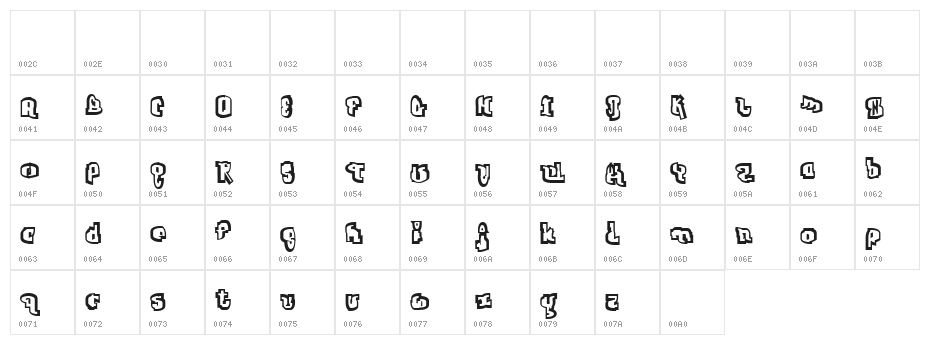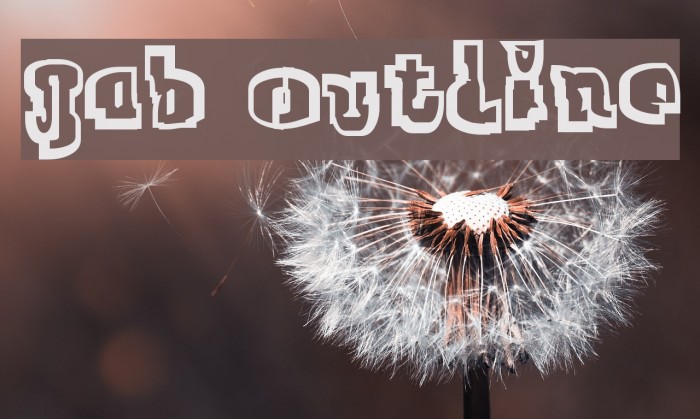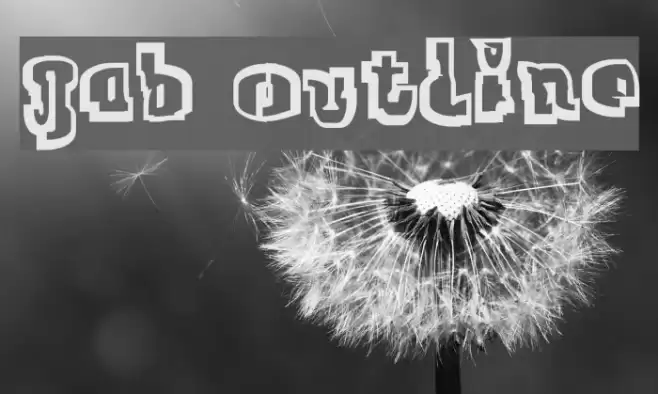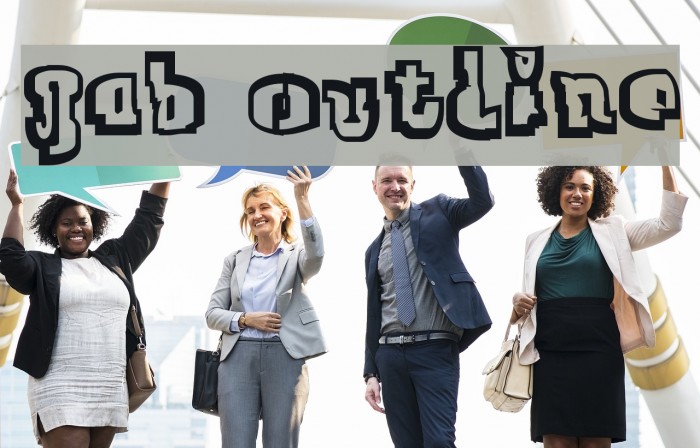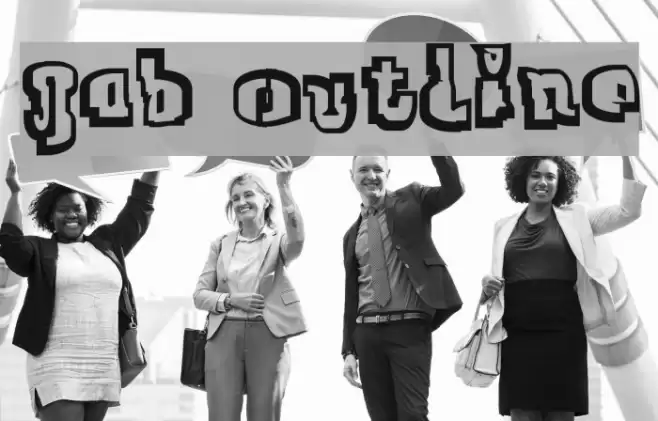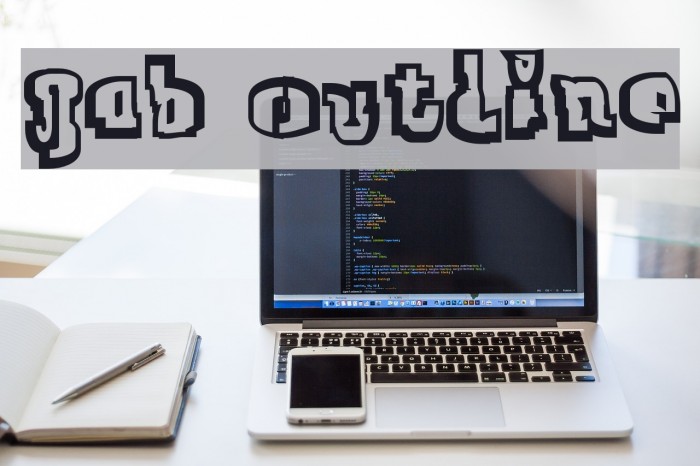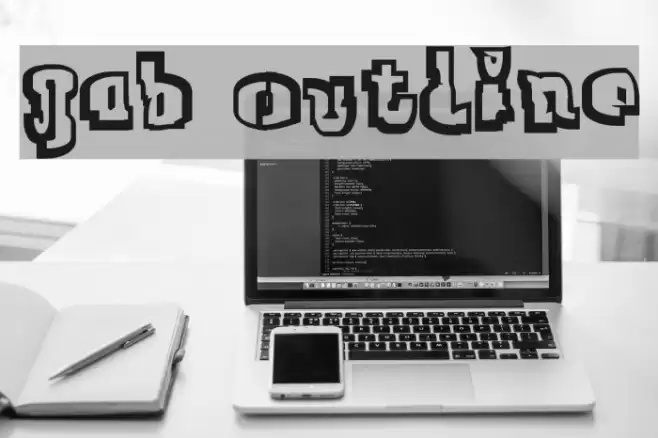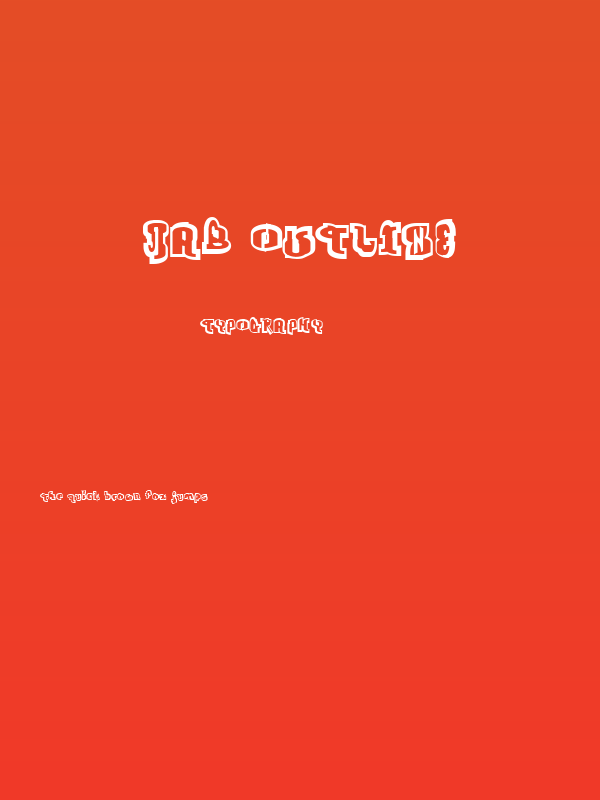
Jab Outline Font
Jab Outline Description
This font features a bold, outlined style with a playful and dynamic appearance. The characters are designed with thick outlines that create a sense of depth and dimension, making each letter stand out prominently. The uppercase and lowercase letters maintain a consistent style, with unique, angular shapes that add a touch of modernity and creativity. The numbers and special characters follow the same design principles, ensuring a cohesive look across all elements. This font is ideal for projects that require a bold statement, combining both readability and artistic flair.
| Proposed Projects | Ideal for posters, logos, headlines, and any design needing a bold, eye-catching font. |